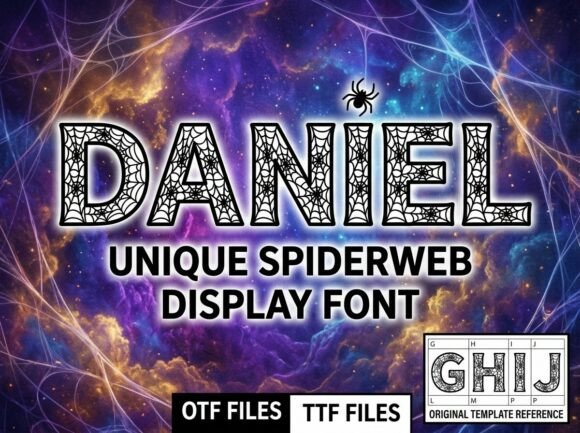
The Daniel Font: A Stunning Decorative Display Font to Elevate Your Designs
What Makes the Daniel Font Special?
The Daniel Font is a versatile decorative display font designed to be the center of attention. Its stunning artistic elements and strong visual personality make it perfect for bold headlines, artistic logos, and creative packaging. The font comes with two file types:
⚠️ IMPORTANT NOTE BEFORE PURCHASE: This font is an ALL-CAPS (Uppercase Only) display typeface. It does not include lowercase letters. It is specifically designed for high-impact headlines, logos, and decorative initials where every letter is a work of art.
- ✨ Unique and artistic elements that add a touch of personality to any design.
- ✅ Strong visual personality that demands attention.
- ⚡️ Versatile enough for use in bold headlines, artistic logos, and creative packaging.
- 💯 Professional and polished finish that elevates any design.
- 🤔 Limited to all-caps letters, which may not be suitable for body text or longer paragraphs.
- ⚠️ May require additional design work to pair with other fonts for optimal visual balance.
The Daniel Font was inspired by the works of renowned typographers and designers who pushed the boundaries of traditional font design. The creator of the Daniel Font aimed to craft a unique and artistic font that would add a touch of personality to any design. With its strong visual personality and stunning artistic elements, the Daniel Font is sure to make a statement in any project.
| Is the Daniel Font suitable for body text? | No, the Daniel Font is an ALL-CAPS display typeface designed for headlines, logos, and decorative initials. It’s not recommended for body text or longer paragraphs. |